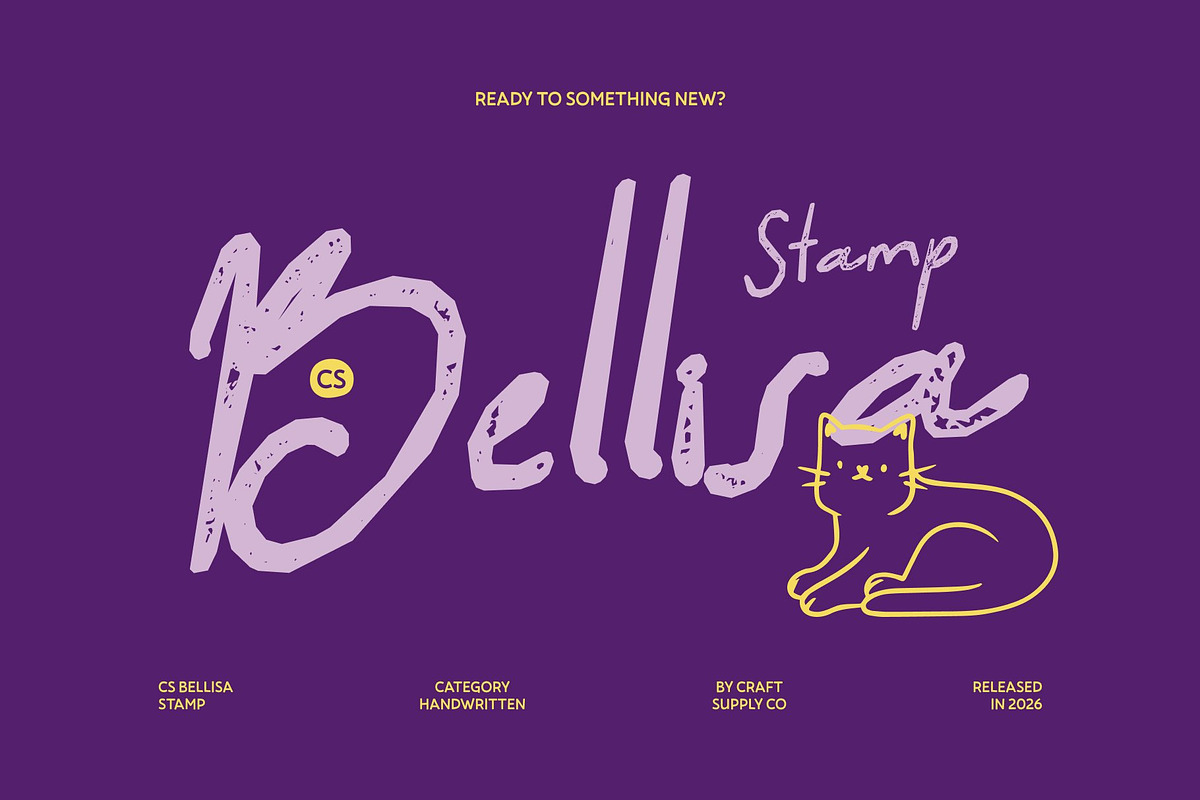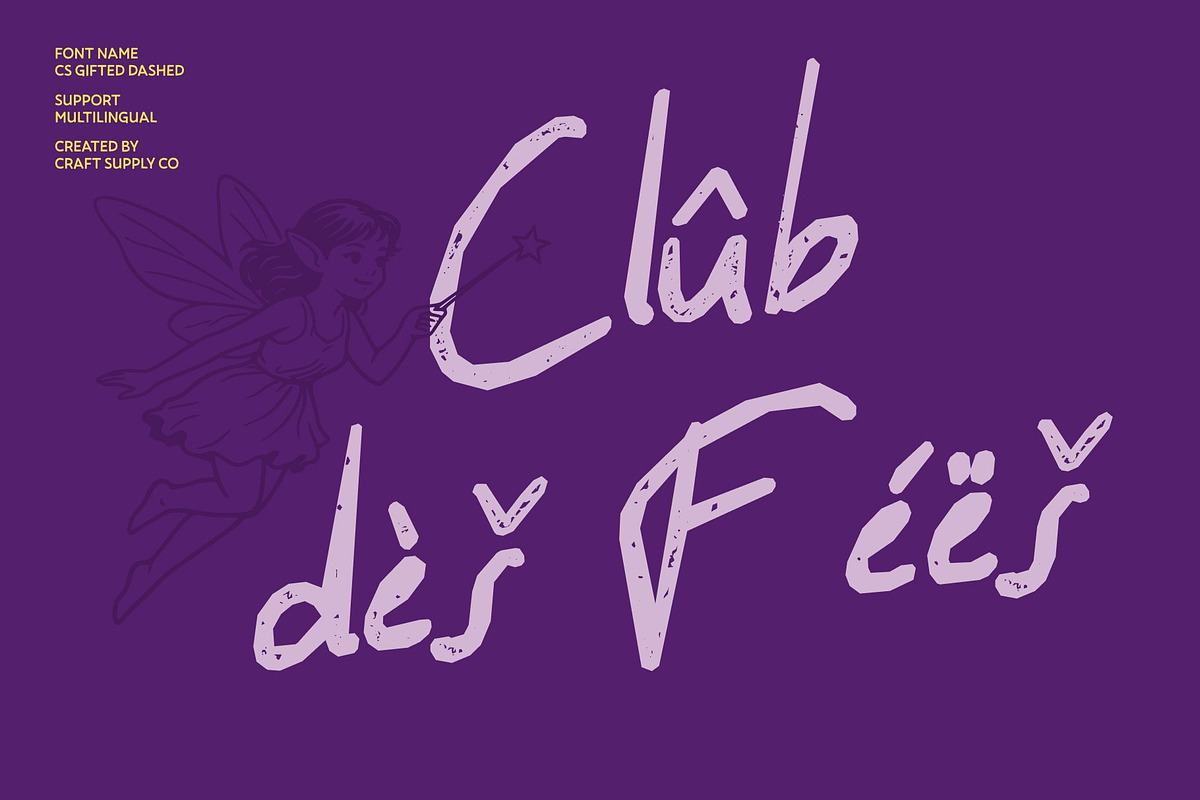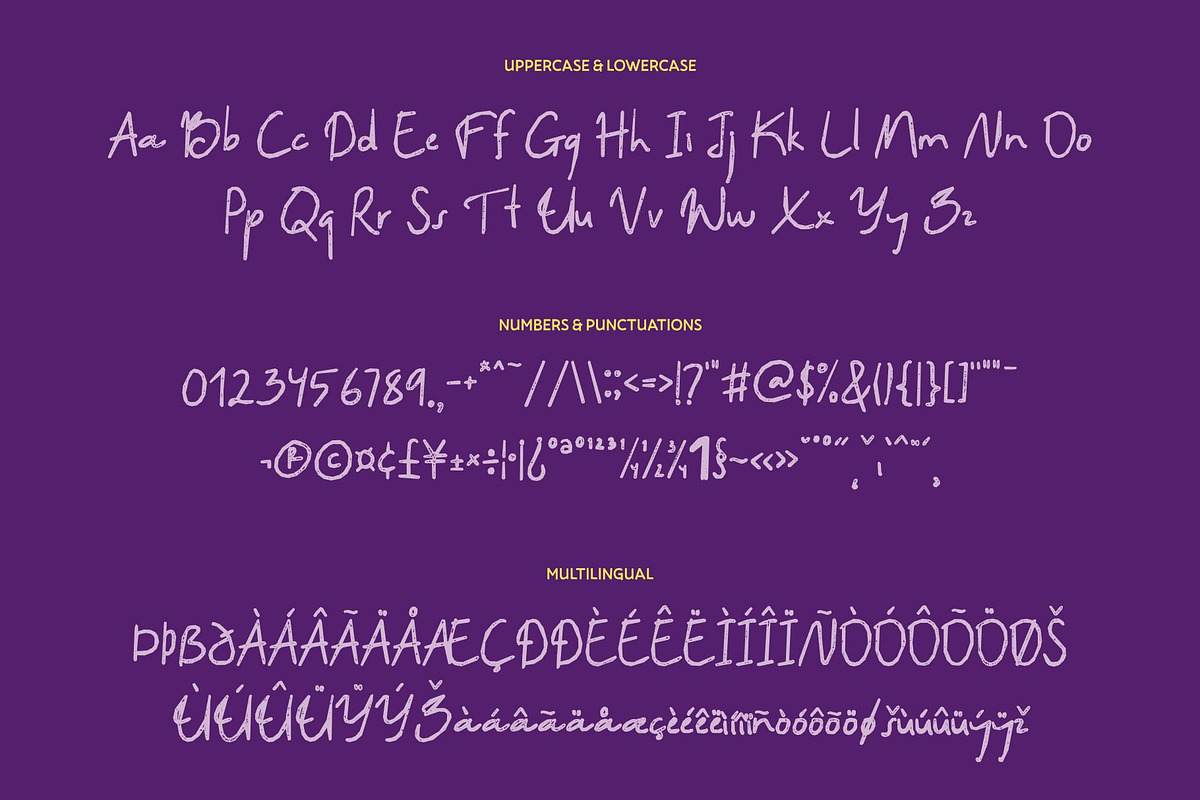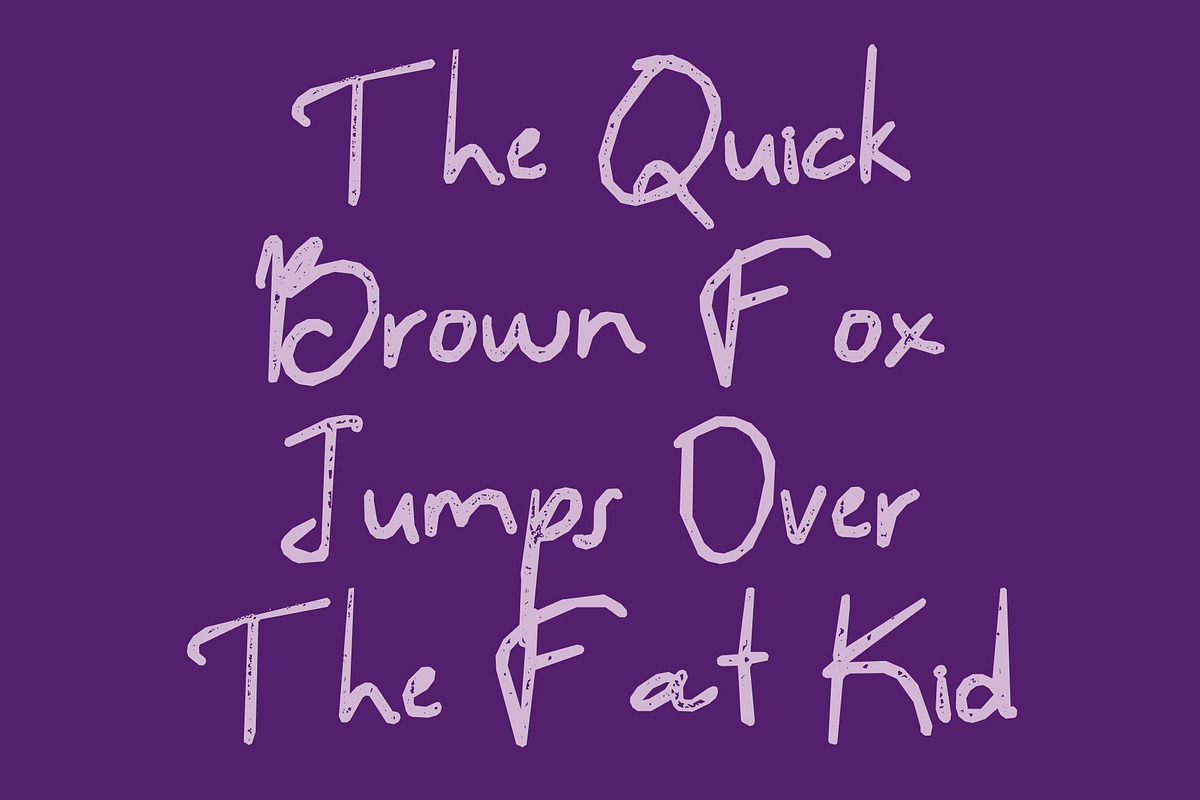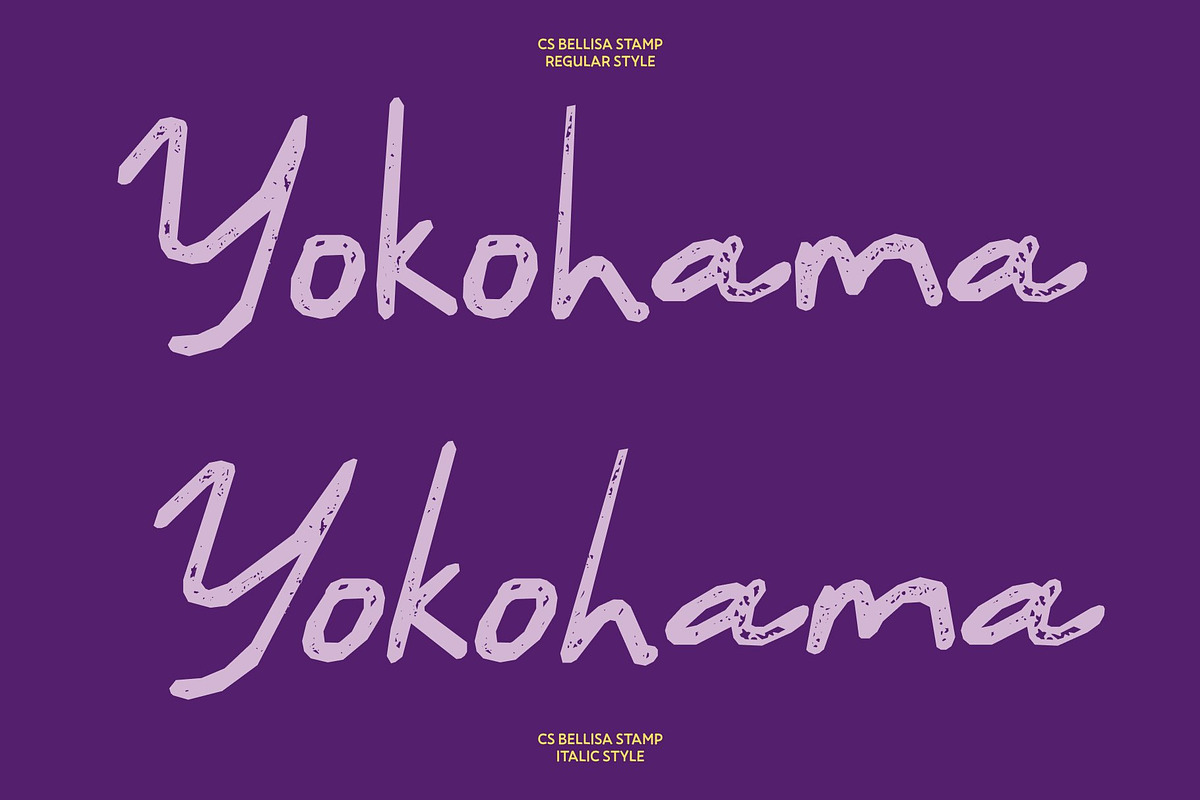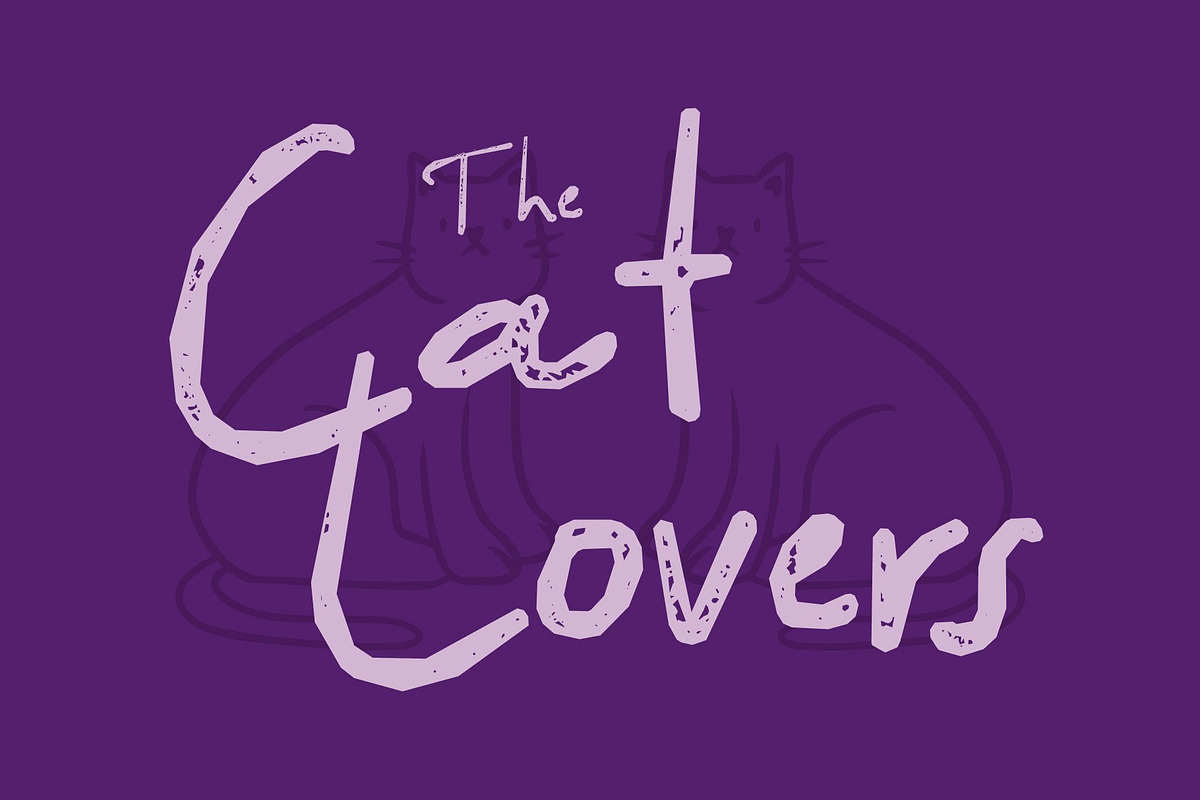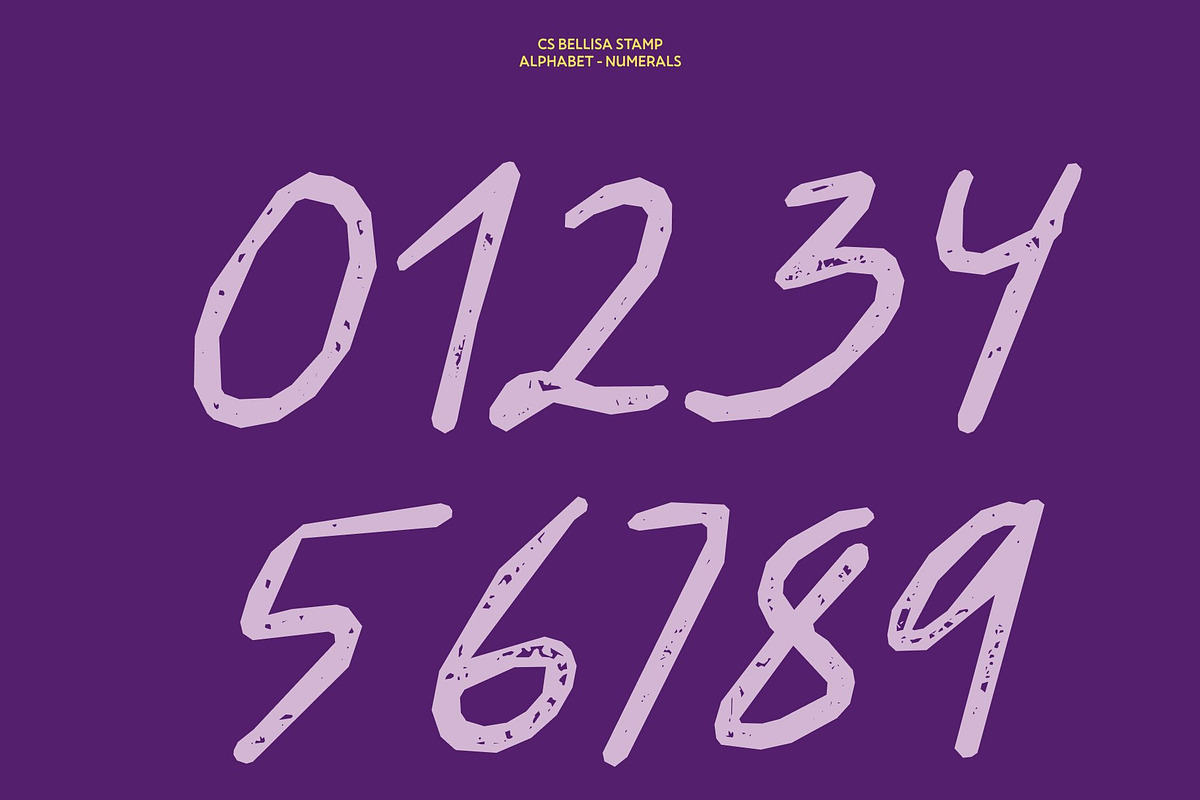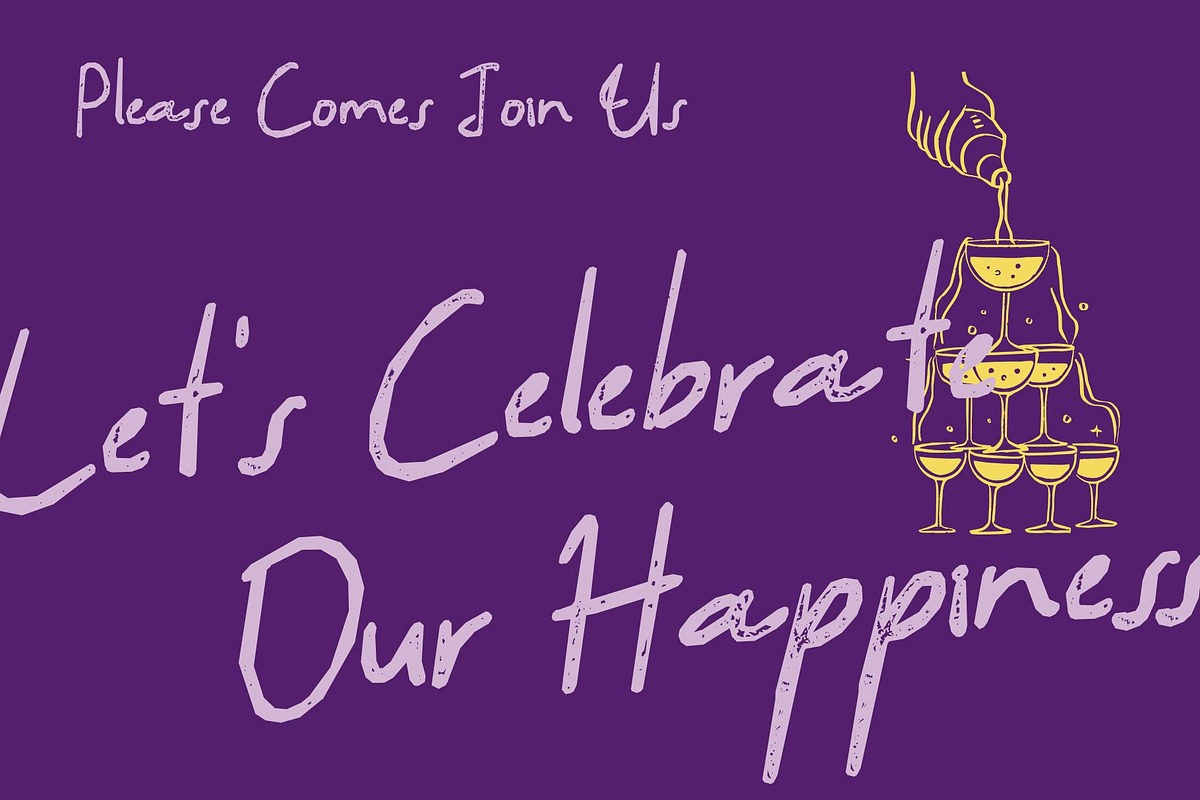
CS Bellisa Stamp
CS Bellisa Stamp – Casual Charm with a Personal Touch
Expressive Handwriting with Stamped Warmth This is a friendly handwritten font that blends sans serif expressiveness with a subtle stamped texture. Its natural, flowing strokes retain their warmth and approachability, while gentle ink variations and lightly distressed edges add a handcrafted, print-inspired character. The result is typography that feels genuine, emotional, and full of life.
Handcrafted Authenticity in Every Detail Each curve and line reflects the beauty of true handwriting, now enriched with soft imperfections that enhance its authenticity. The stamped finish brings depth and tactile charm, making every word feel personal and thoughtfully created. It captures attention not through boldness alone, but through relatable and human expression.
Relaxed Style with Modern Versatility With its casual, free-flowing rhythm, this font balances professionalism and playfulness. The textured effect adds warmth without compromising clarity, allowing it to adapt seamlessly across creative editorial layouts, advertising designs, and contemporary branding projects.
Perfect for Personal Branding and Creative Visuals From posters and packaging to social media graphics and lifestyle branding, shines where personality matters. Its expressive handwritten style paired with vintage-stamped texture transforms simple messages into inviting, memorable visuals helping brands connect with audiences in a confident and heartfelt way.